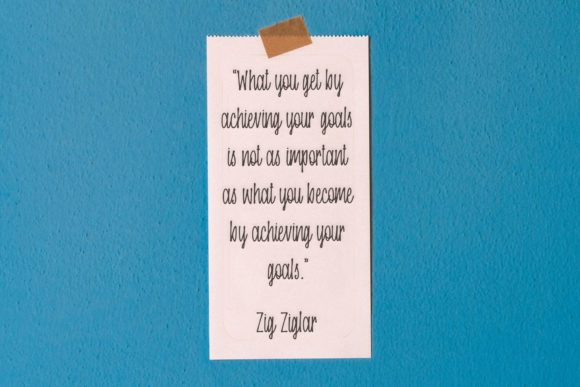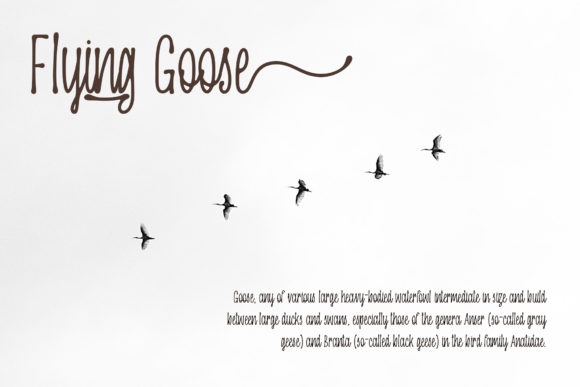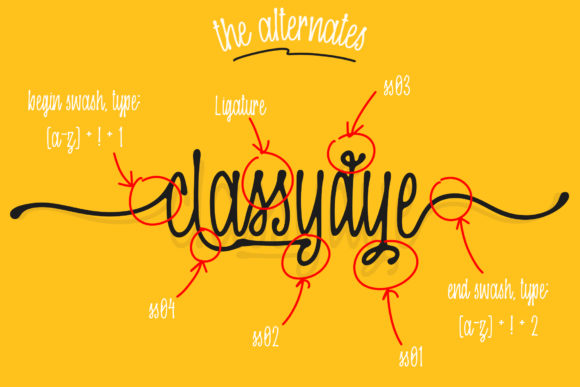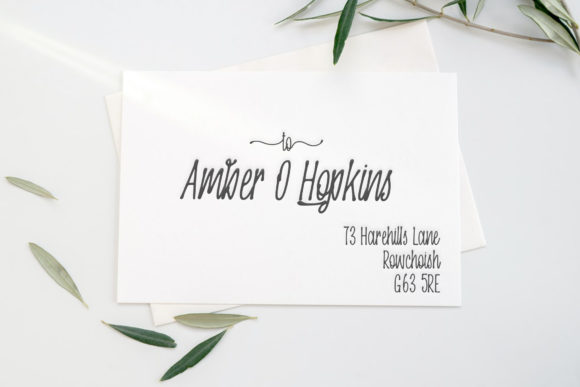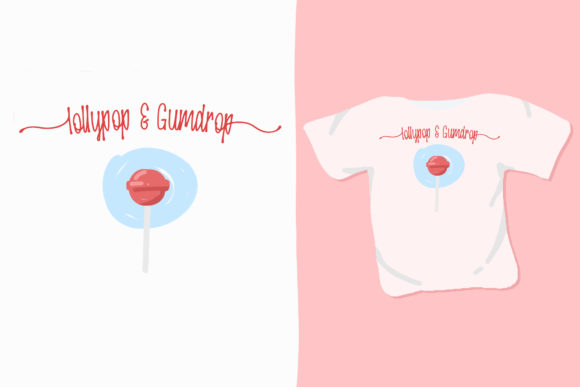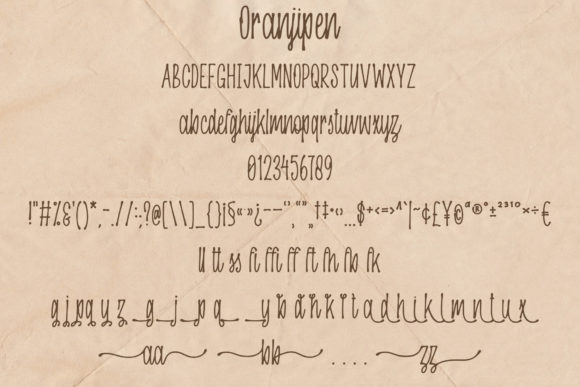
Introduction to Oranjipen Font
As a designer, have you ever felt like your ideas are just a step away from becoming a reality, but something’s missing? You’ve got the concept, the vision, but the execution is holding you back. This is where the right design resource can make all the difference. For me, it’s moments like these that remind me of the importance of having the perfect font to bring my ideas to life.
Enter the Oranjipen Font, a unique script font that’s about to revolutionize the way you design. With its high-quality glyphs and swashes, this PUA encoded font is the ultimate design resource for any creative project. Whether you’re working on a free download or a commercial design, the Oranjipen Font is the perfect addition to your toolkit. And with its transparent background, you can rest assured that your design will shine through.
Key Features of Oranjipen Font
- High-quality font with a unique, hand-drawn design, ideal for creative projects and design resources.
- Features a transparent background, allowing for easy layering and composition in design projects.
- Designed to be highly legible, with clear and distinct letterforms that work well in a variety of contexts.
Honest Review: Oranjipen Font
I recently had the chance to work with the Oranjipen Font, and I’m excited to share my honest thoughts on this design resource. The Oranjipen Font is a high-quality font that can be easily downloaded for free, making it a great addition to any creative project.
- ✨ The Oranjipen Font is incredibly versatile and can be used for a wide range of design projects, from logos to typography-heavy designs.
- ✨ The transparent background makes it easy to use the font on any background, without worrying about unwanted colors clashing.
- ⚠️ The Oranjipen Font may not be suitable for all design projects, particularly those that require a lot of customizability or advanced typography features.
- ⚠️ The font is not as comprehensive as some of the more commercial options available, with a limited character set and no support for some of the more advanced font features.
Overall, I’m impressed with the Oranjipen Font. It’s a great design resource for anyone looking for a high-quality, free font that can add a touch of creativity to their projects. While it may have some limitations, it’s definitely worth considering for your next design project.
Tips for Getting the Most Out of Oranjipen Font
To get the most out of the Oranjipen Font, use it in combination with other design elements, such as images and graphics. Experiment with different font sizes and styles to create visually appealing designs.
The Oranjipen Font is ideal for a variety of creative projects, including social media graphics, presentations, documents, and more. Its high-quality design and transparent background make it a versatile resource for designers and non-designers alike.